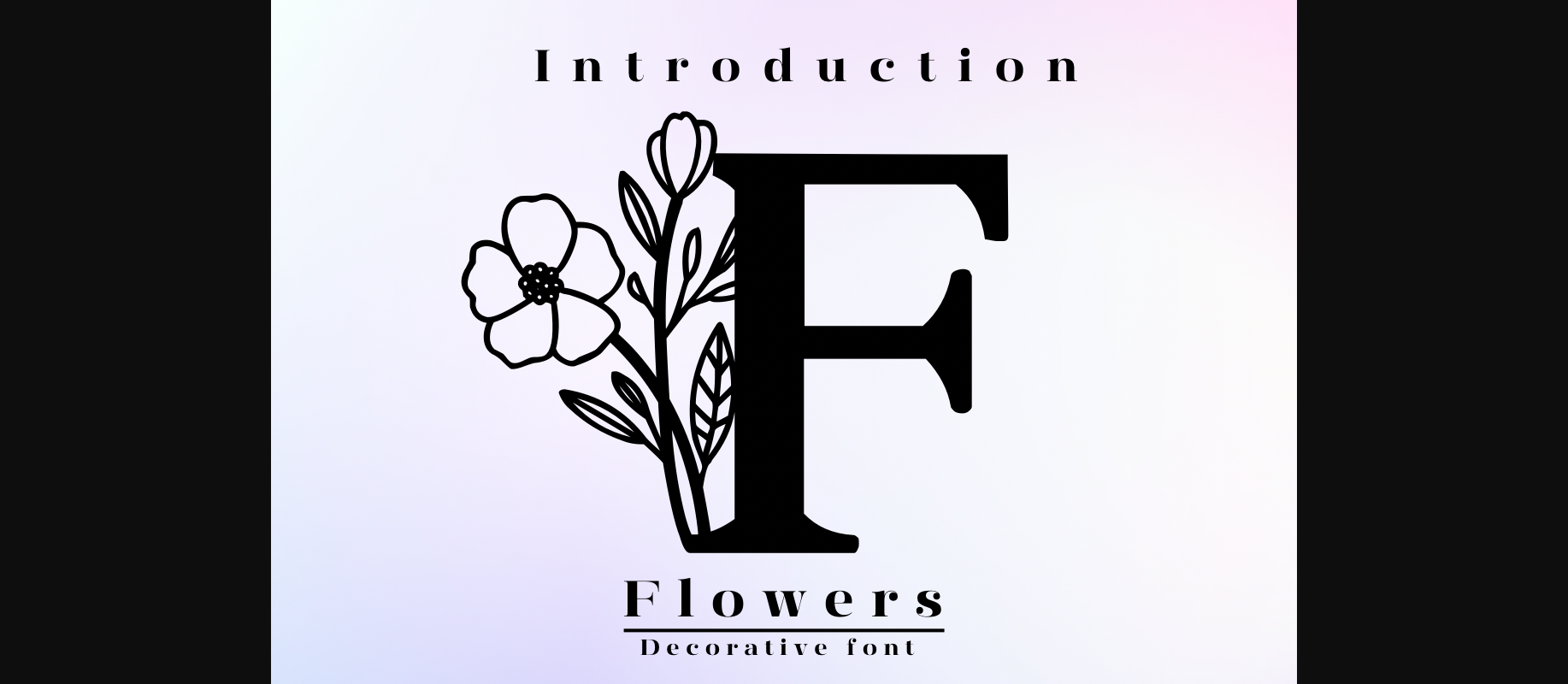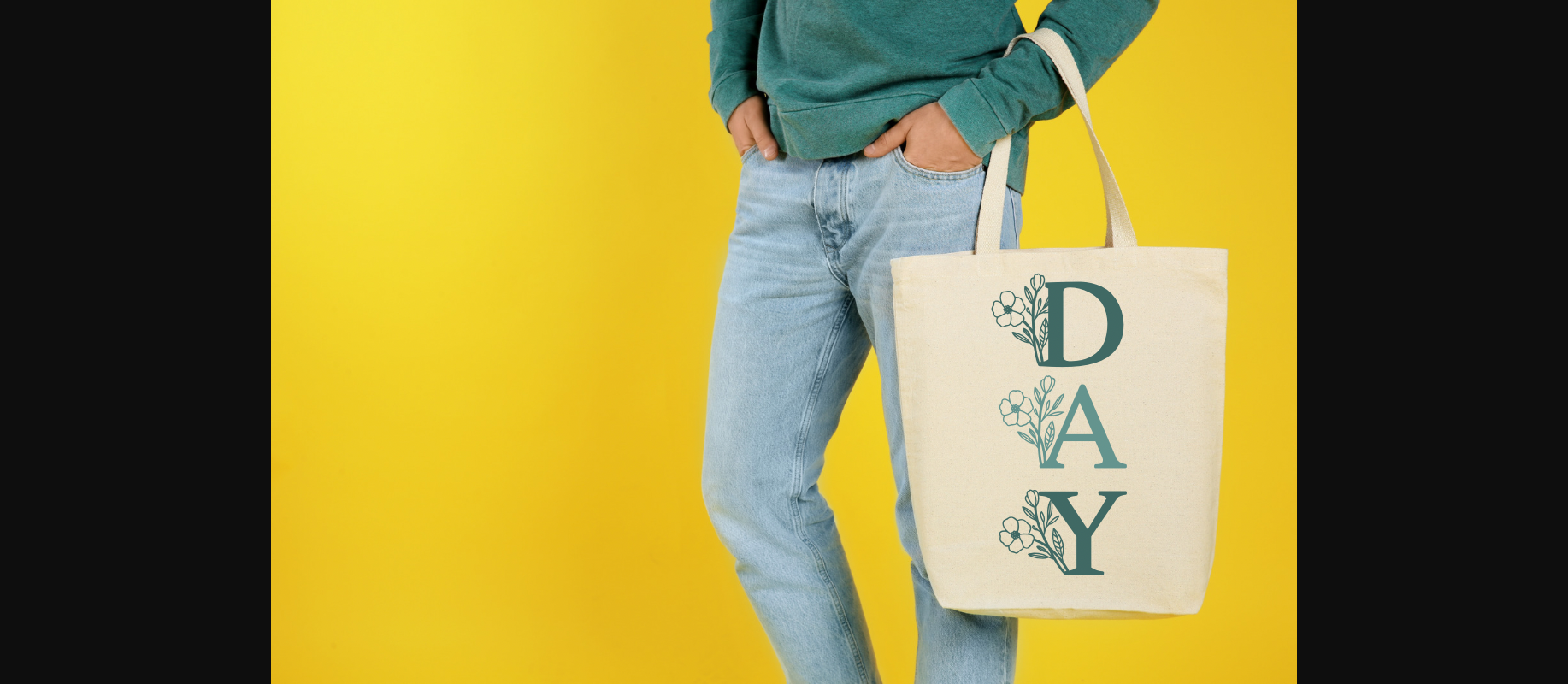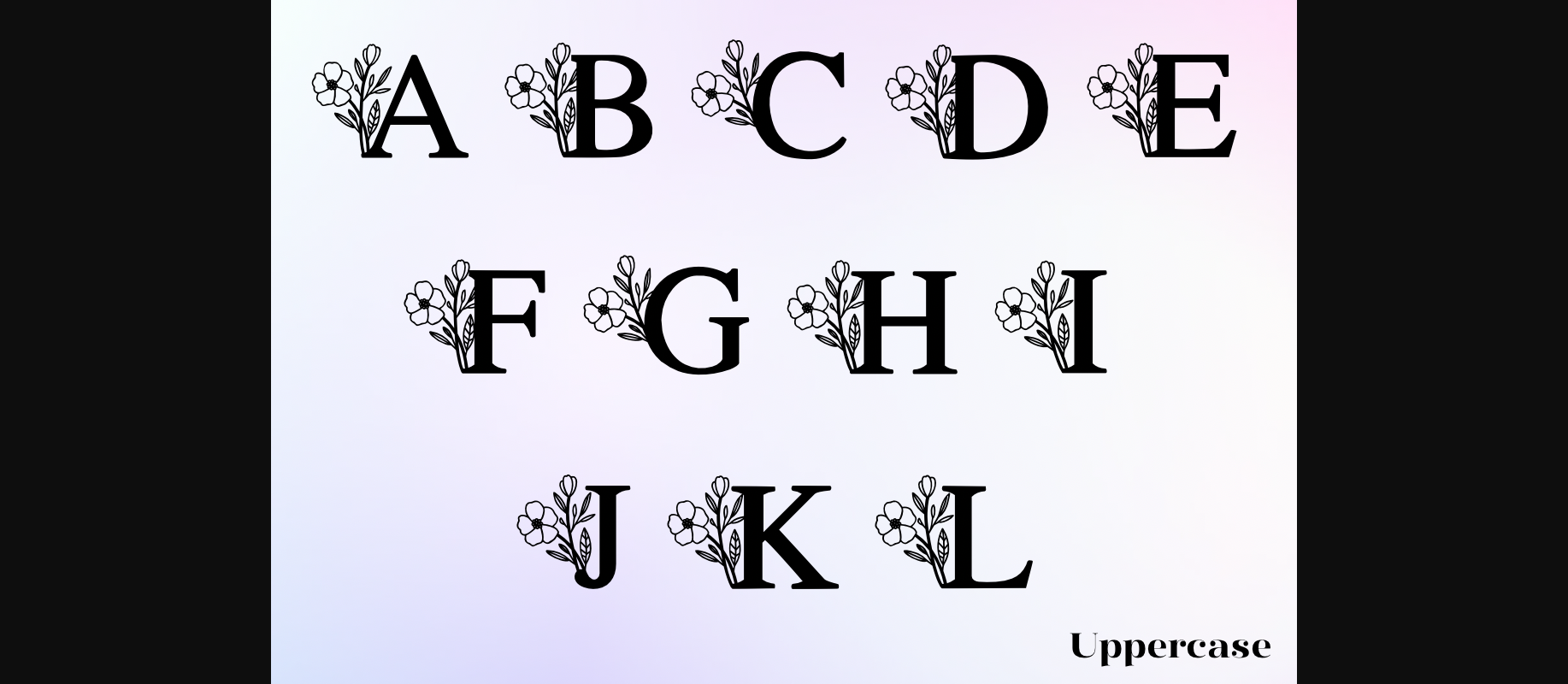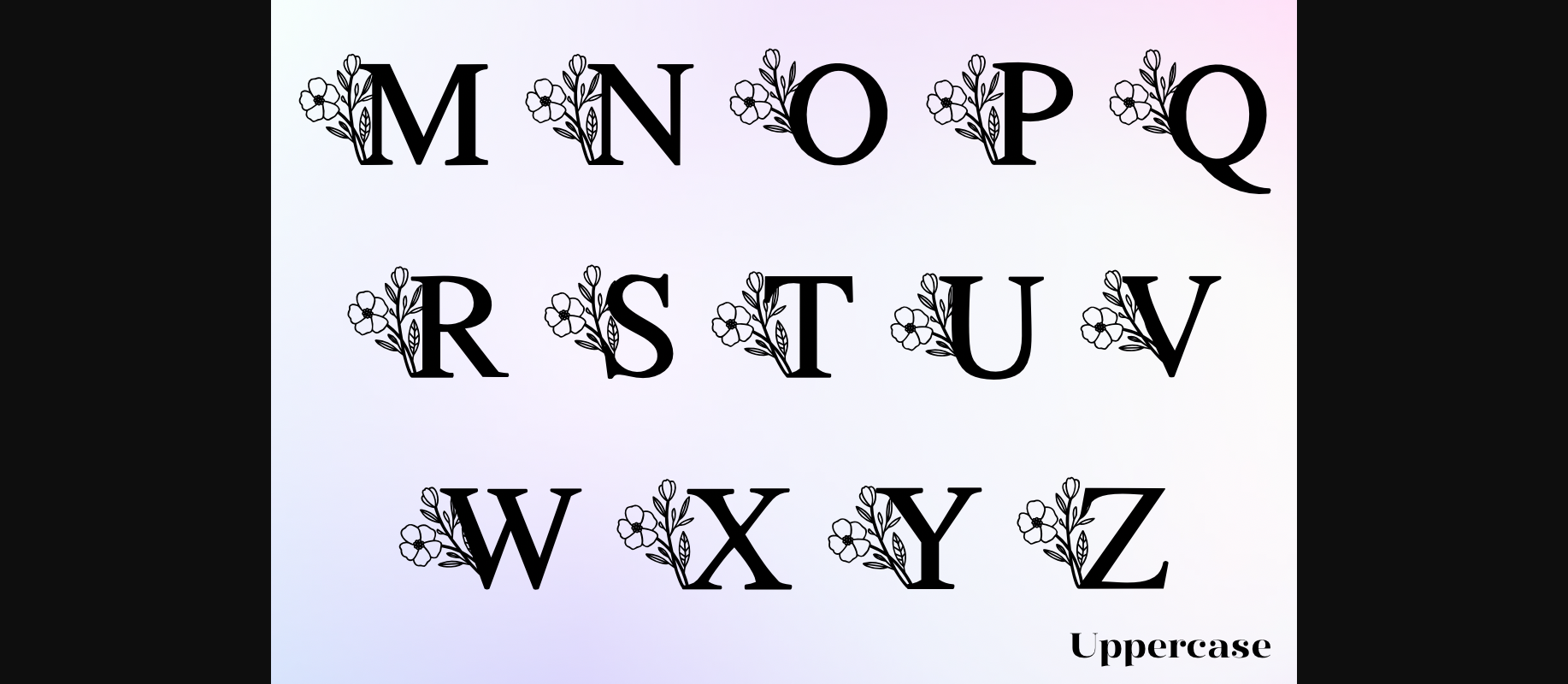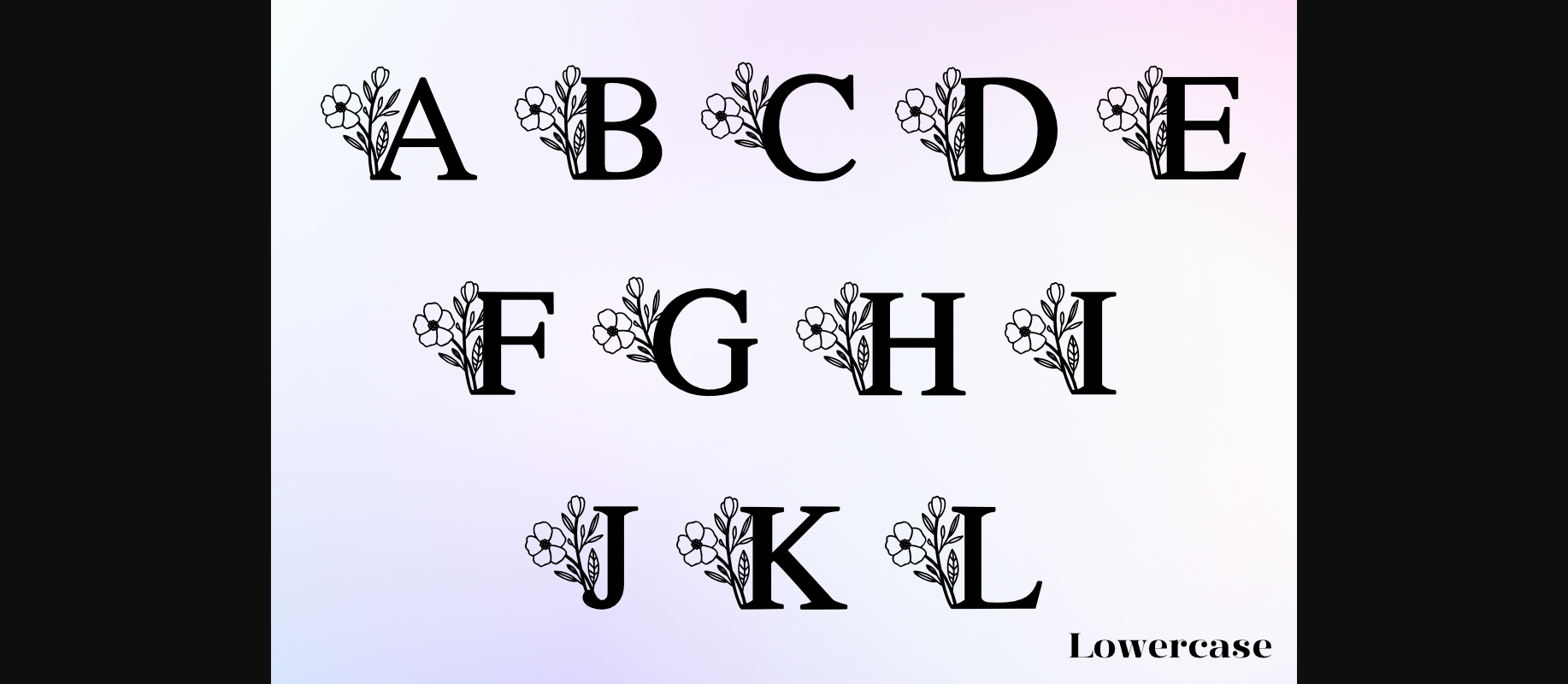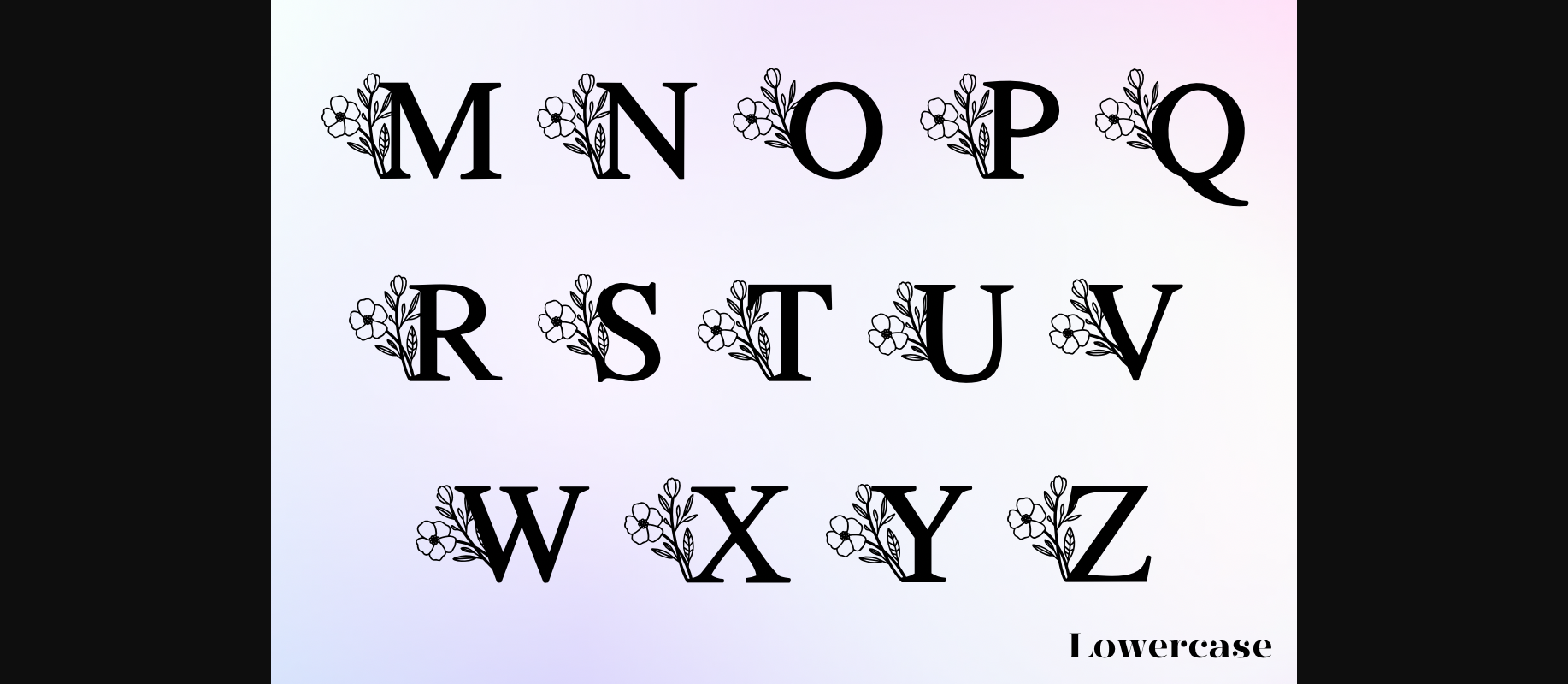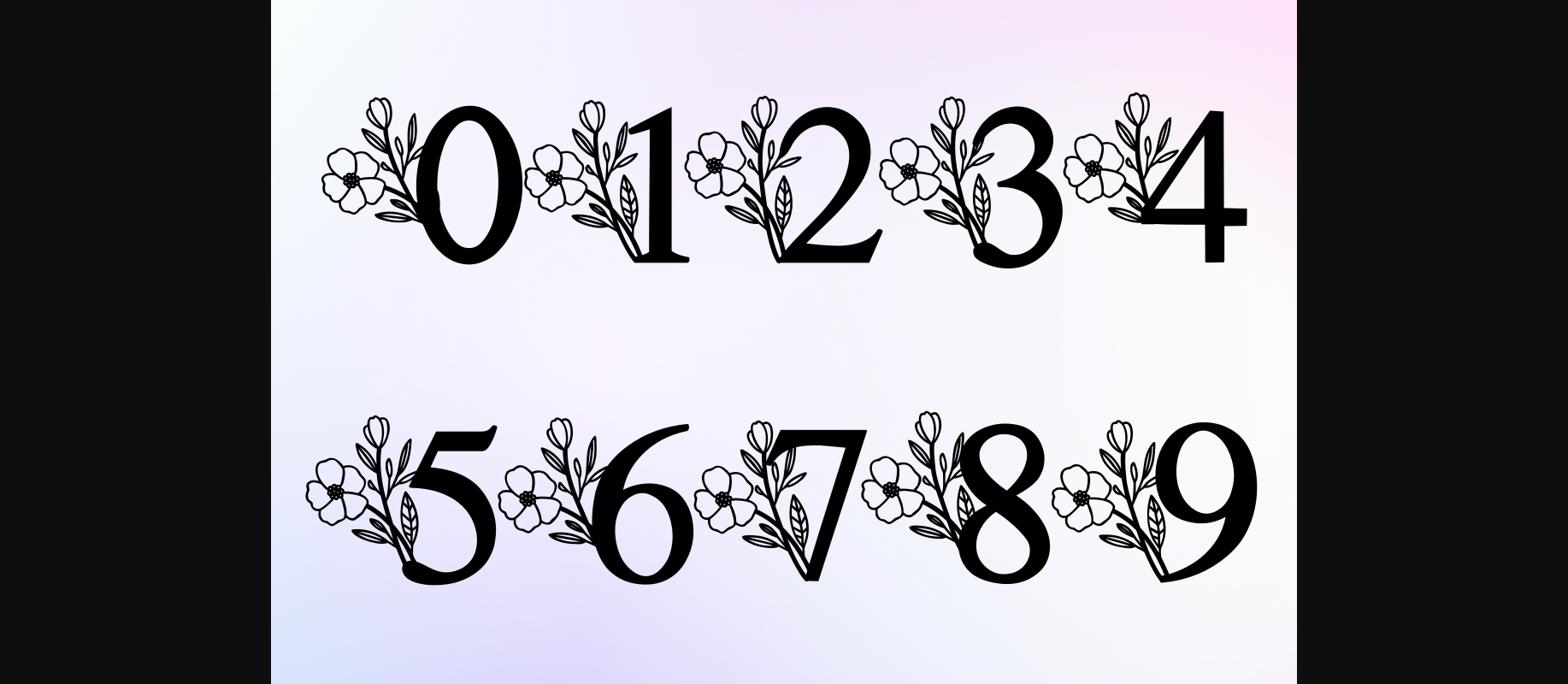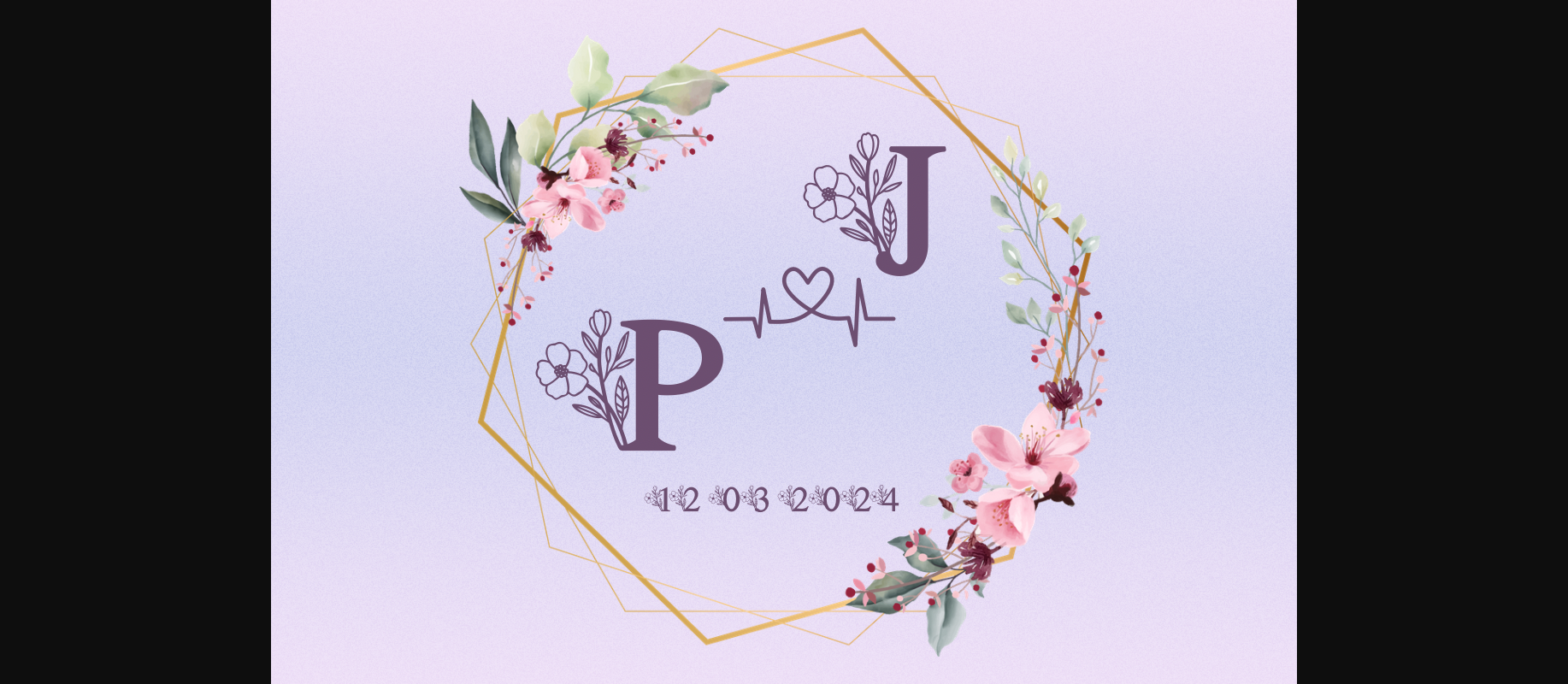
HomeDecorative FontsFlowers Font Decorative Fonts Flowers Font FacebookTwitterPinterestWhatsApp 1 of 11 ... Flowers Font Poster 2... Flowers Font Poster 3... Flowers Font Poster 4... Flowers Font Poster 5... Flowers Font Poster 6... Flowers Font Poster 7... Flowers Font Poster 8... Flowers Font Poster 9... Flowers Font Poster 10... Flowers Font Poster 11... About Flowers Font Flowers is a lovely decorative font. You can use it for romantic monograms, wedding invites, thoughtful birthday or anniversary cards, and more! DOWNLOAD NOW People also explored Winter Sweater Font Oneday Font Hilda Boby Script Font Garshyl Font Koozie Font Bastian Melany Font Wonderland Vintage Font Doodge Font The Fraga Script 186 0 TagsFlowersFlowers Font Previous articleSummer Set FontNext articleZebra Font LEAVE A REPLY Cancel reply Comment: Please enter your comment! Name:* Please enter your name here Email:* You have entered an incorrect email address! Please enter your email address here Website: Save my name, email, and website in this browser for the next time I comment. Personal Use Free Creativo Personal Use Free Read more about this font Fibon Personal Use Free Read more about this font Starborn Font Personal Use Free Read more about this font Wildwest Personal Use Free Read more about this font BLOG Best Fonts for YouTube Videos: Make Your Thumbnails Stand Out Best Fonts for YouTube Videos: Make Your Thumbnails Stand Out Choosing the right font can make a massive difference in how your YouTube videos perform.... Transform Your Website: Elevate Your Typography with 7 Best Web Font Generators Elegant Wedding Invitation Fonts – Handwritten & Script Fonts Top 7 Google Fonts Alternatives for Faster and Privacy-Friendly Web Design (2025)